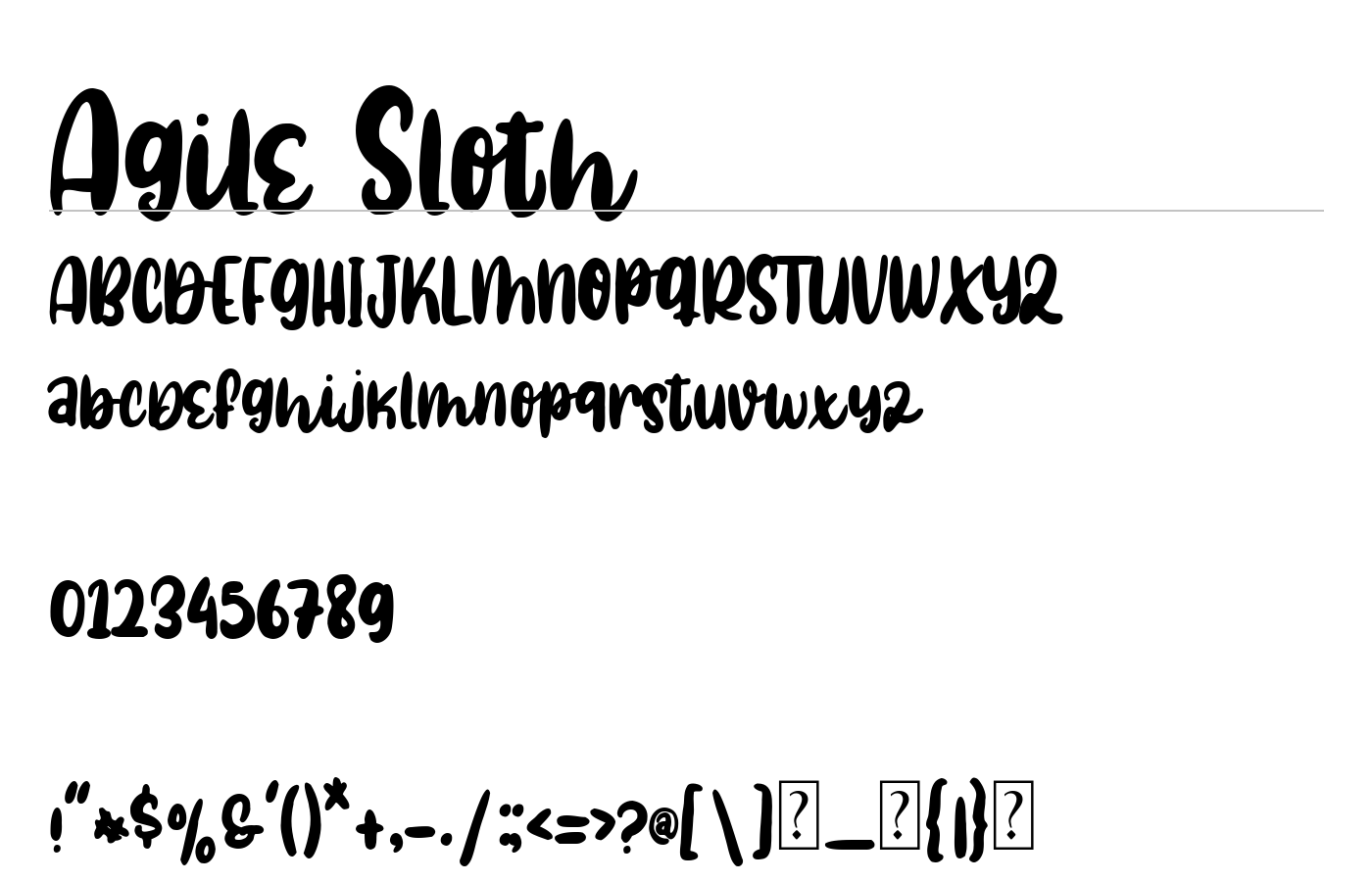
Agile Sloth is a playful and bold script font with a friendly, hand-drawn feel. Its chunky weight and rounded, irregular shapes give it a casual and approachable personality, making it perfect for informal branding, fun headlines, or creative projects that want to convey warmth and energy. This font works especially well for children’s products, lifestyle brands, and any design that benefits from a lively, quirky touch.
Agile Sloth Font
About Agile Sloth Font
| Font family | Agile Sloth Font |